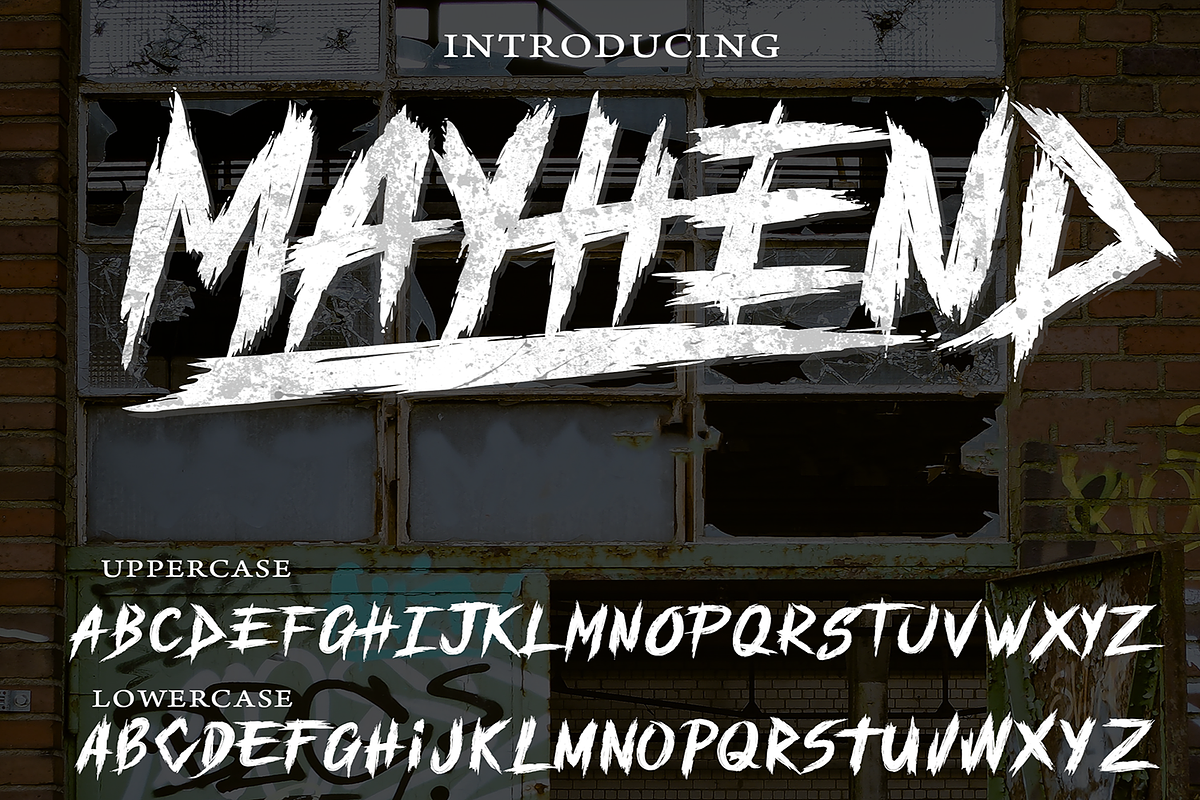
MAYHEND
Introducing
MAYHEND
- Trash brush inspired font perfect on your school projects, covers, etc.
- Lifestyle street theme font for branding, website, mobile app etc.
- Available in Uppercase, Numbers, Punctuations and Symbols.